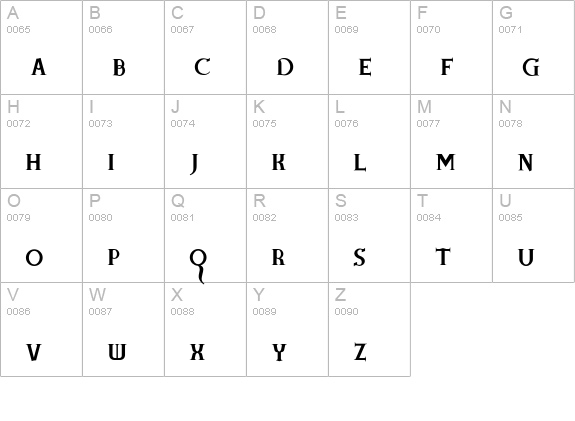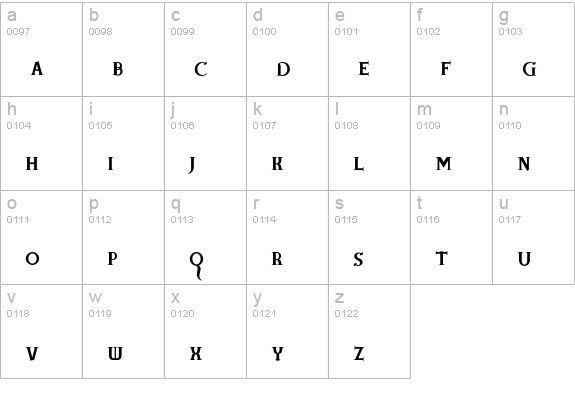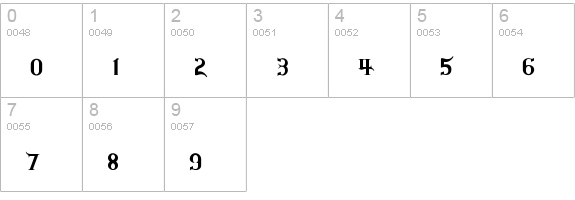
Introducing BadAngel-Saint font, a bold and captivating typeface that effortlessly blends the edginess of the bad boy with the divine elegance of a saint. This unique font embodies a powerful contrast, making it perfect for projects that demand attention and make a lasting impression. BadAngel-Saint font is crafted with meticulous attention to detail, resulting in a visually stunning display that is sure to captivate any audience. Its sharp, angular lines convey a sense of strength and rebellion, while its graceful curves add a touch of sophistication and refinement. Whether you're designing a poster, creating a logo, or working on a branding project, BadAngel-Saint font is the ideal choice to bring your visions to life. Its versatility allows it to seamlessly adapt to various design contexts, making it a truly valuable asset in any designer's toolkit. One of the best things about BadAngel-Saint font is that it is freely available to download at FontsMarket.com. This means that designers and creatives of all levels can access this incredible font without any barriers. Now, you can effortlessly enhance your projects with the distinctive character and allure of BadAngel-Saint font, without having to worry about any additional costs. So, why wait? Embrace the power of BadAngel-Saint font and let it unlock a realm of creativity and possibilities for your design endeavors. Download it today from FontsMarket.com and set your designs apart with its unique blend of bad boy charm and saintly elegance.